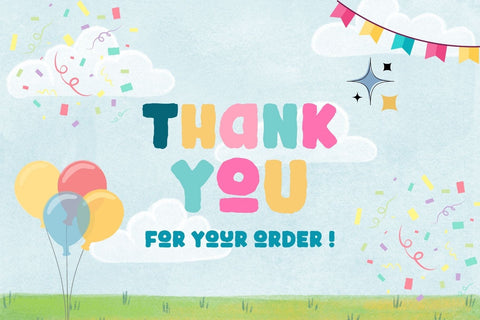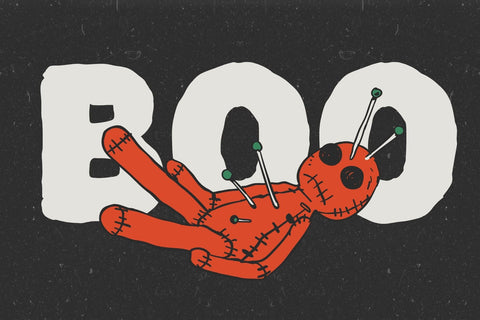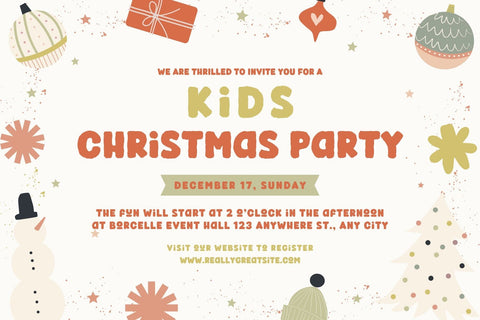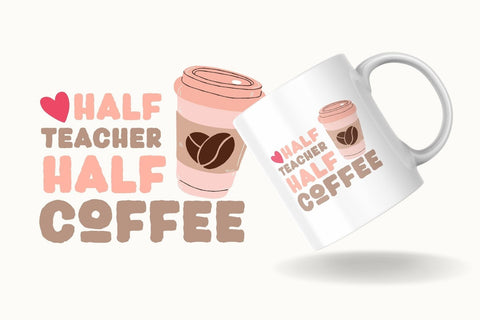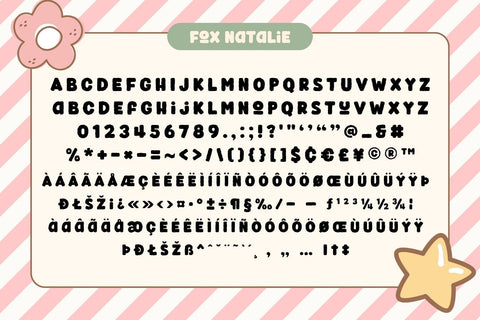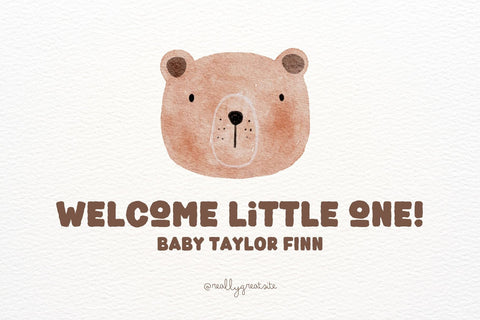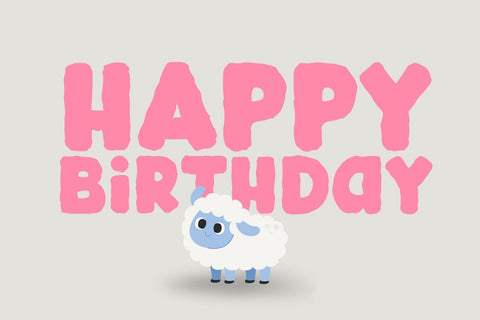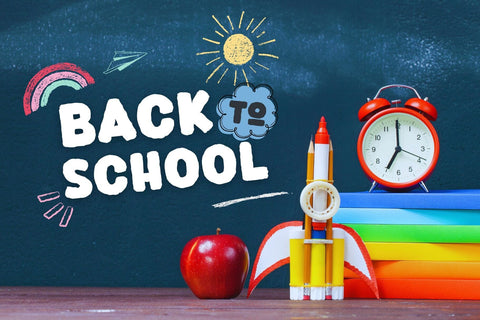
Fox Natalie Font
“Fox Natalie” is a fun and playful font with a bubbly, hand-drawn style. Its chunky, rounded letters and vibrant feel make it ideal for creative projects aimed at a younger audience or for those wanting a whimsical touch. Perfect for children’s books, playful posters, or any design that needs a splash of personality and charm.